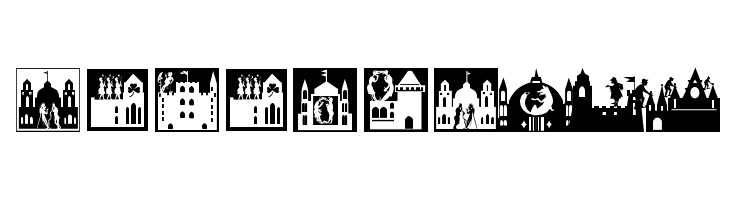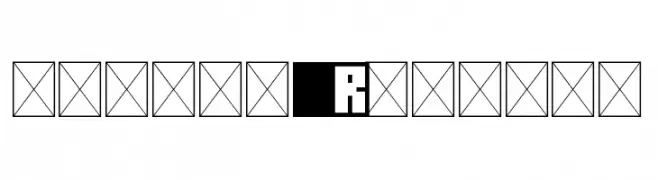
• Miniature-Caps
( Fonts by Giovanni Landi )
An ornate, decorative font with intricate, framed letters.
• MiniBet
( Barmee - www.nowak.tv/fontoholic )
A pixelated, grid-based font with a retro digital style.
• Minidib
( Marc Clancy - www.marcclancy.com/ )
A modern, geometric font with consistent stroke widths and a clean design.
• MinidibEmb
( Marc Clancy - www.marcclancy.com/ )
A bold, geometric font with a 3D effect and modern style.
• Minidom
A decorative font with characters as castle silhouettes.
• Minidom-07
A decorative font featuring fantasy-themed architectural silhouettes.
• MinidoMinvers
Architectural silhouette display font with each glyph as a unique building.
• MiniForma2
( Fonts by Bartek Nowak - www.nowak.tv/fontoholic/ )
A pixelated, retro-style font with a blocky, digital appearance.
• MiniJasc
( Barmee - www.nowak.tv/fontoholic )
A bold, pixelated font with a retro digital aesthetic.
• MiniKongo
( Fonts by Bartek Nowak - www.nowak.tv/fontoholic/ )
A pixelated, retro font with a bold, 8-bit digital aesthetic.